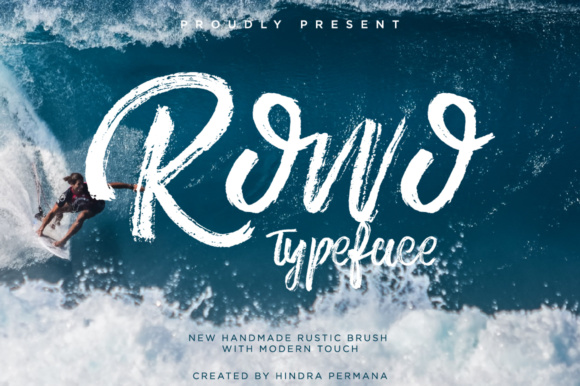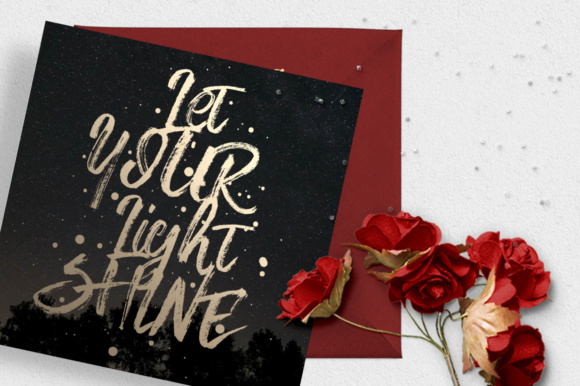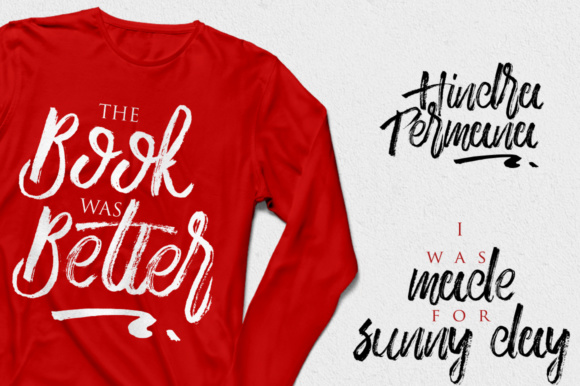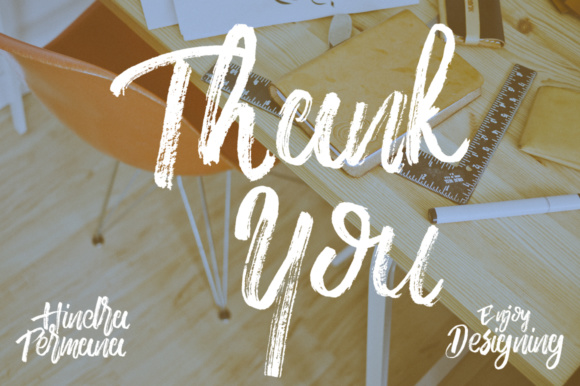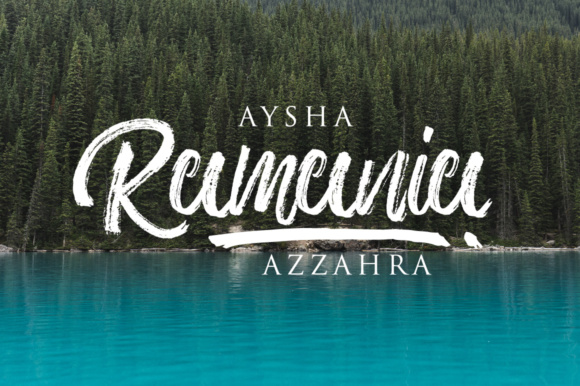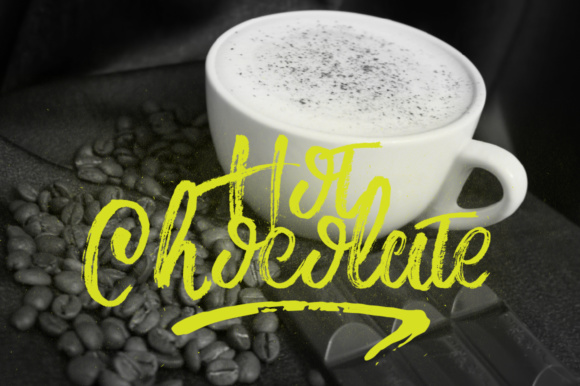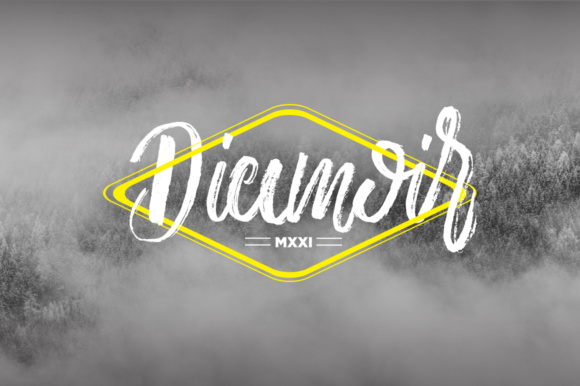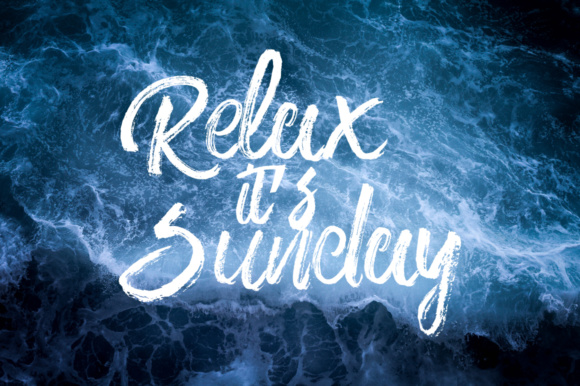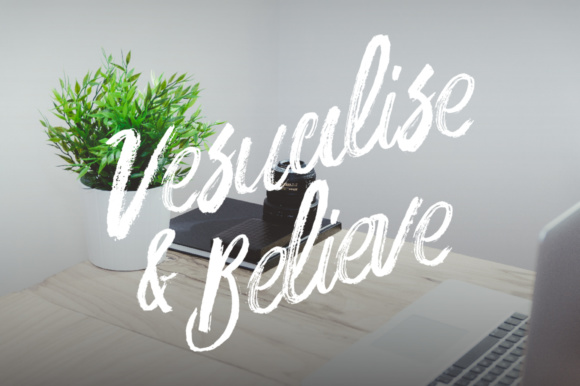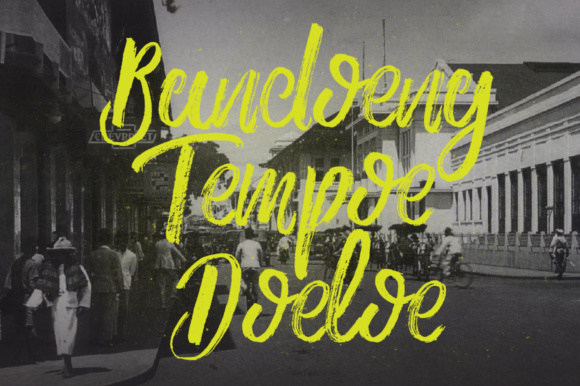
Rowo Font
About Rowo Font
Rowo is a beautiful, hand brushed font with detailed grunge texture. This is a great script option for merchandising and apparel, and adds some focus to alternative designs.